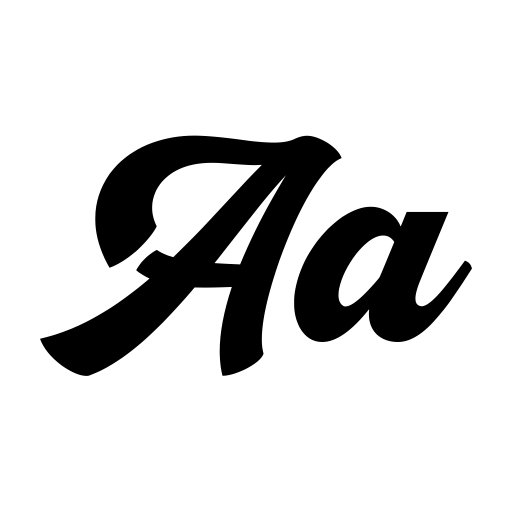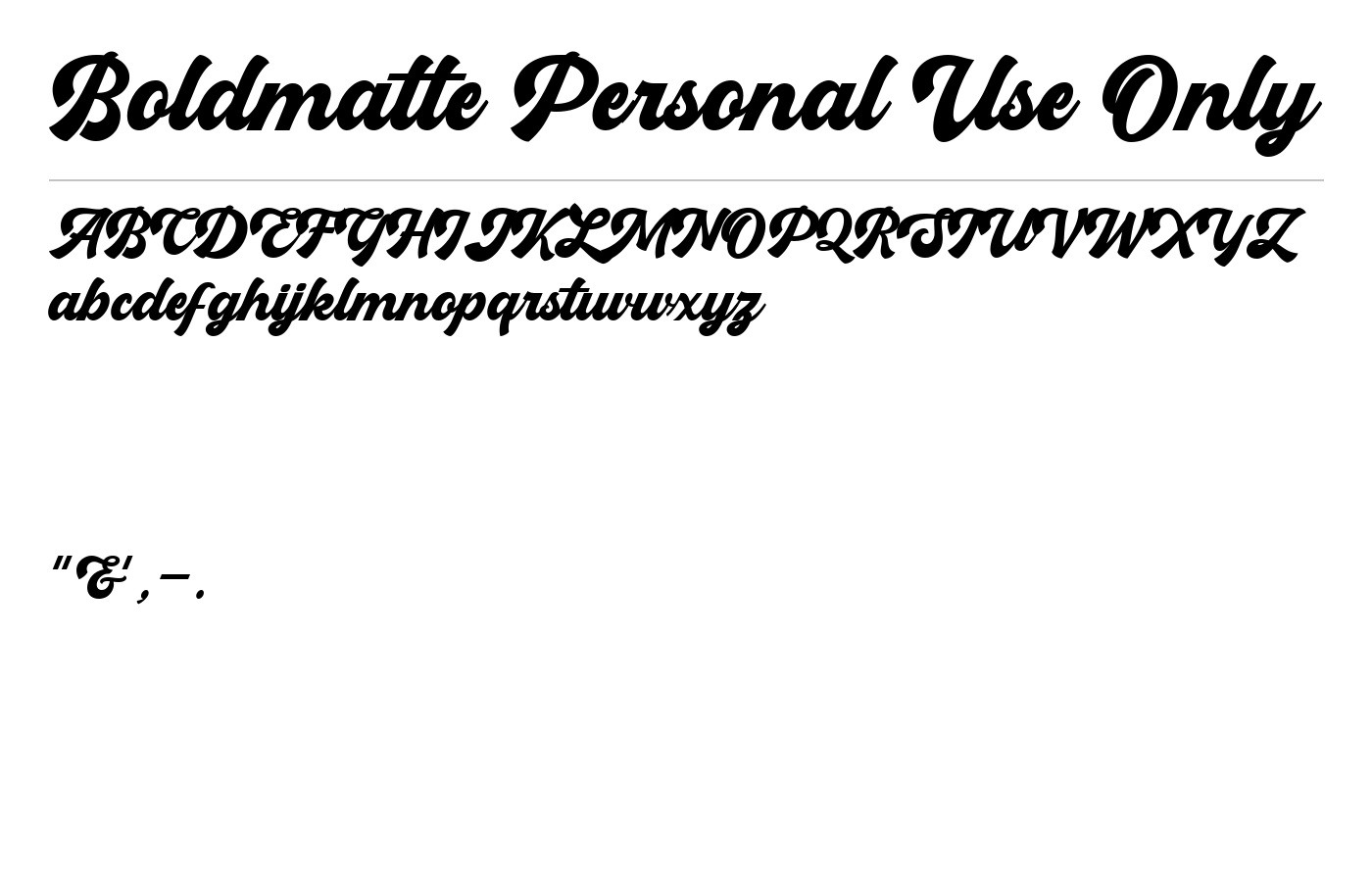
Boldmatte Personal Use Only is a bold, script-style font with strong, smooth curves and a lively, handwritten feel. Its dense weight and flowing connections give it a classic yet energetic personality, perfect for stylish branding, elegant logos, and eye-catching headlines. This font brings a confident, vintage charm that suits creative projects looking to make a stylish statement.
Boldmatte Personal Use Only Font
About Boldmatte Personal Use Only Font
| Font family | Boldmatte Personal Use Only Font |
| Designer | Fuad Hasan |